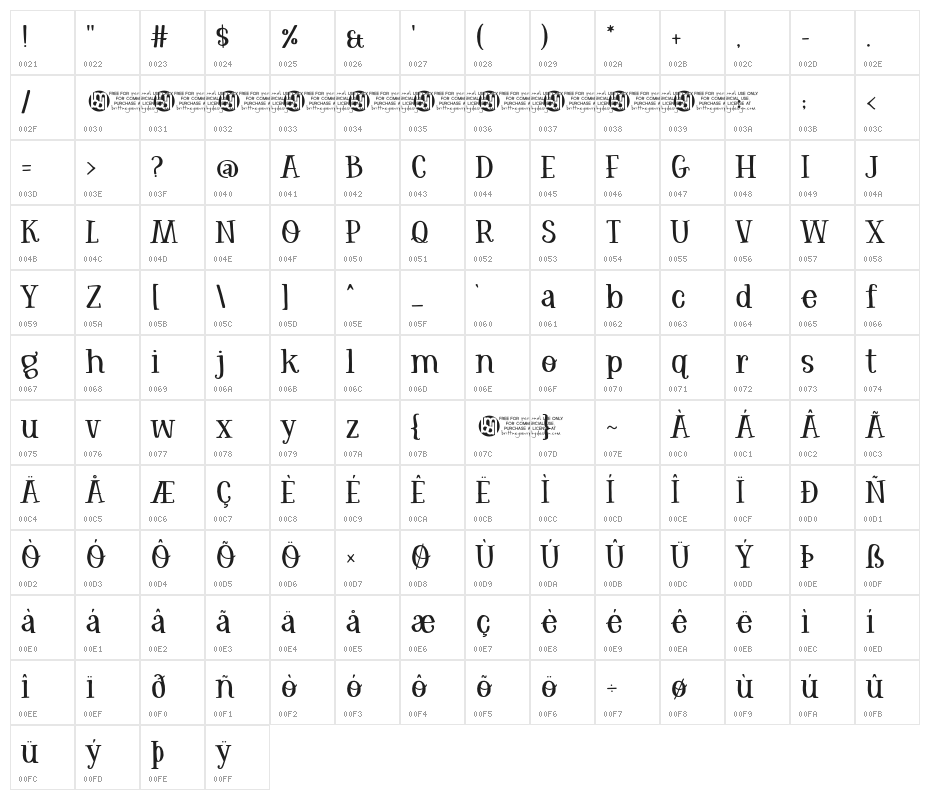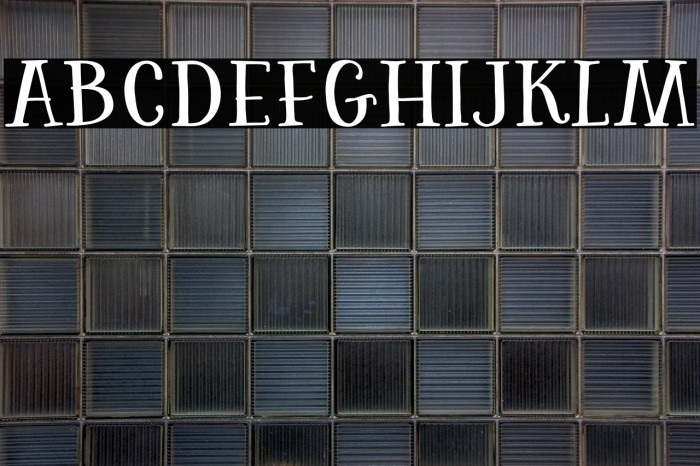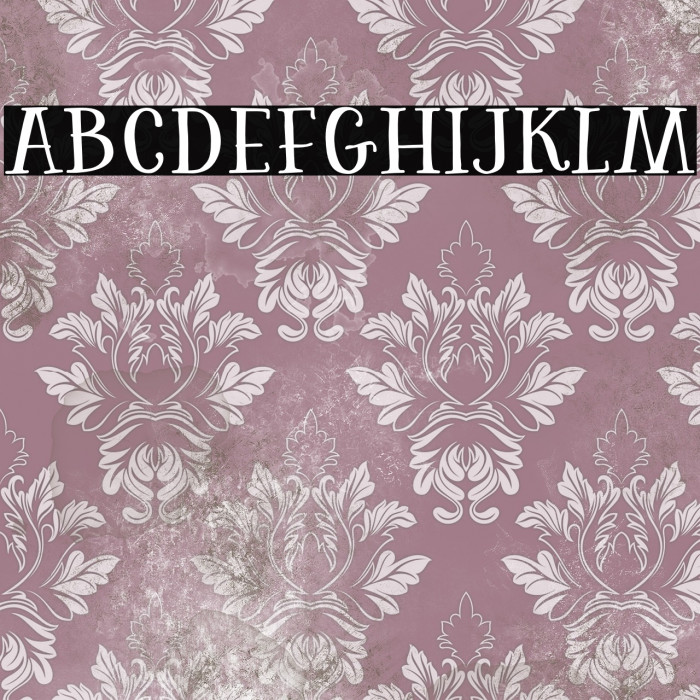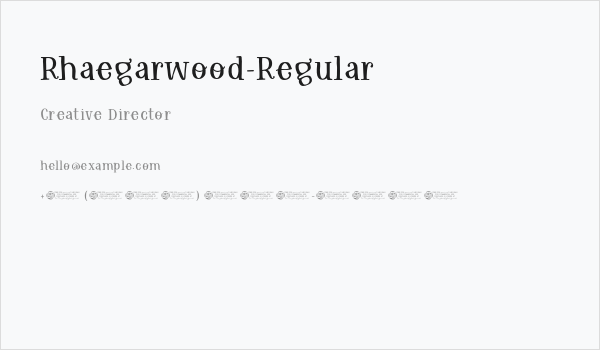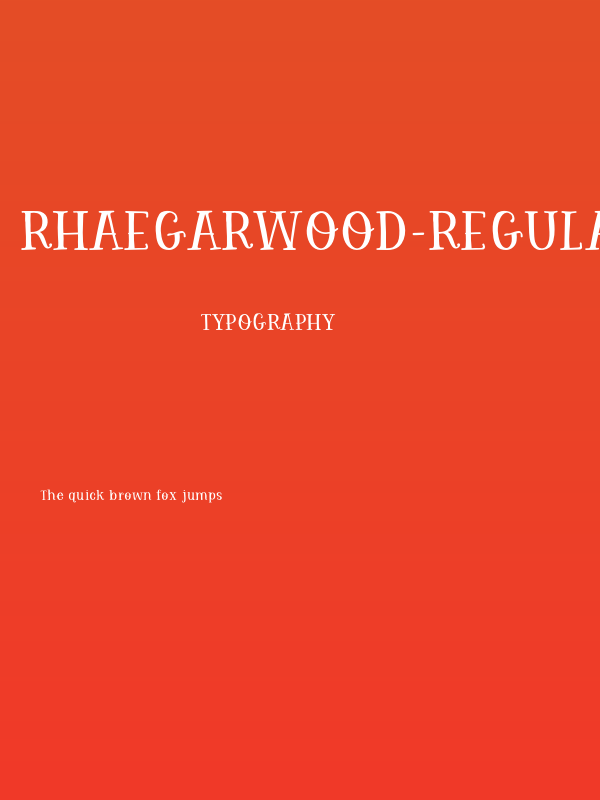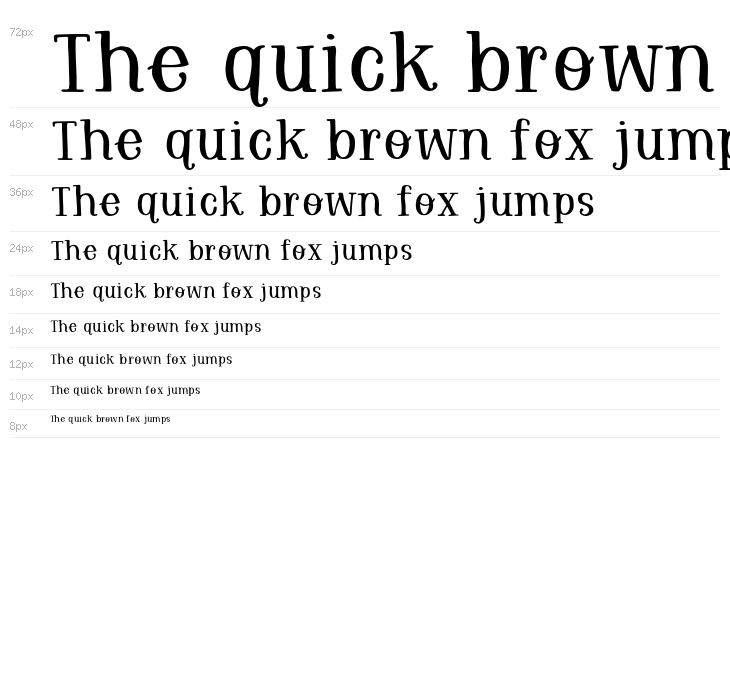
Rhaegarwood-Regular Font
Rhaegarwood-Regular Description
This font features a playful and whimsical design with a hand-drawn aesthetic. The characters have a slightly uneven baseline, adding to its charm and informal style. The strokes are moderately thick, with subtle variations that give it a handcrafted feel. The uppercase letters are bold and prominent, while the lowercase letters maintain a consistent flow with rounded edges. The numerals and special characters follow the same playful style, making it suitable for creative and artistic projects. Its unique character makes it stand out, perfect for adding a touch of personality to any design.
| Proposed Projects | Ideal for children's books, greeting cards, playful branding, and artistic posters. |